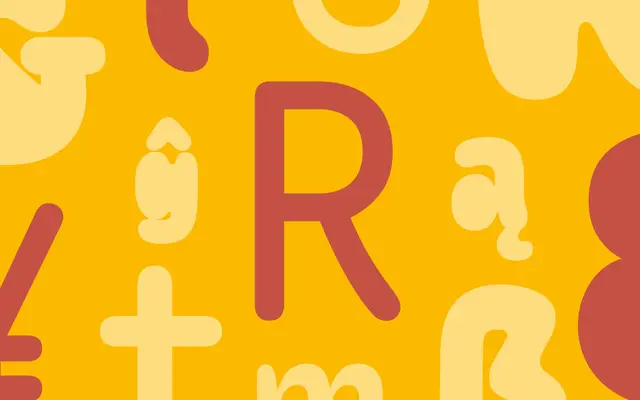
Caraque
Dalton Maag · Pablo Gámez · 2023
A playful display sans by Pablo Gámez with a Melt axis that runs from solid to melted, drawn for impactful, expressive setting.
A display sans by Pablo Gámez built around the idea of melting chocolate, with Weight and Melt variable axes that move shapes from solid to soft drips. Five static weights run from Regular to Black, and the variable font extends those into expressive states for posters, packaging and campaign work. Reach for it when you want warmth and humour in a confident, contemporary voice.
Dalton Maag describe Caraque as a delicious display sans inspired by melting chocolate, with Weight and Melt variable axes that flex from solid to melted shapes for playful, expressive setting.